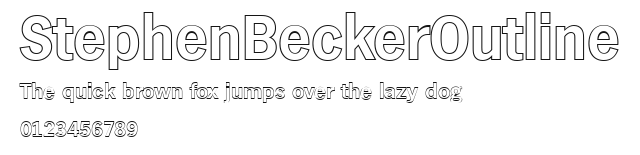
StephenBeckerOutline Preview
About StephenBeckerOutline.ttf
StephenBeckerOutline.ttf is a modern, elegant sans-serif font designed for ultimate readability and visual harmony. Perfect for branding, headlines, web design, and print materials.